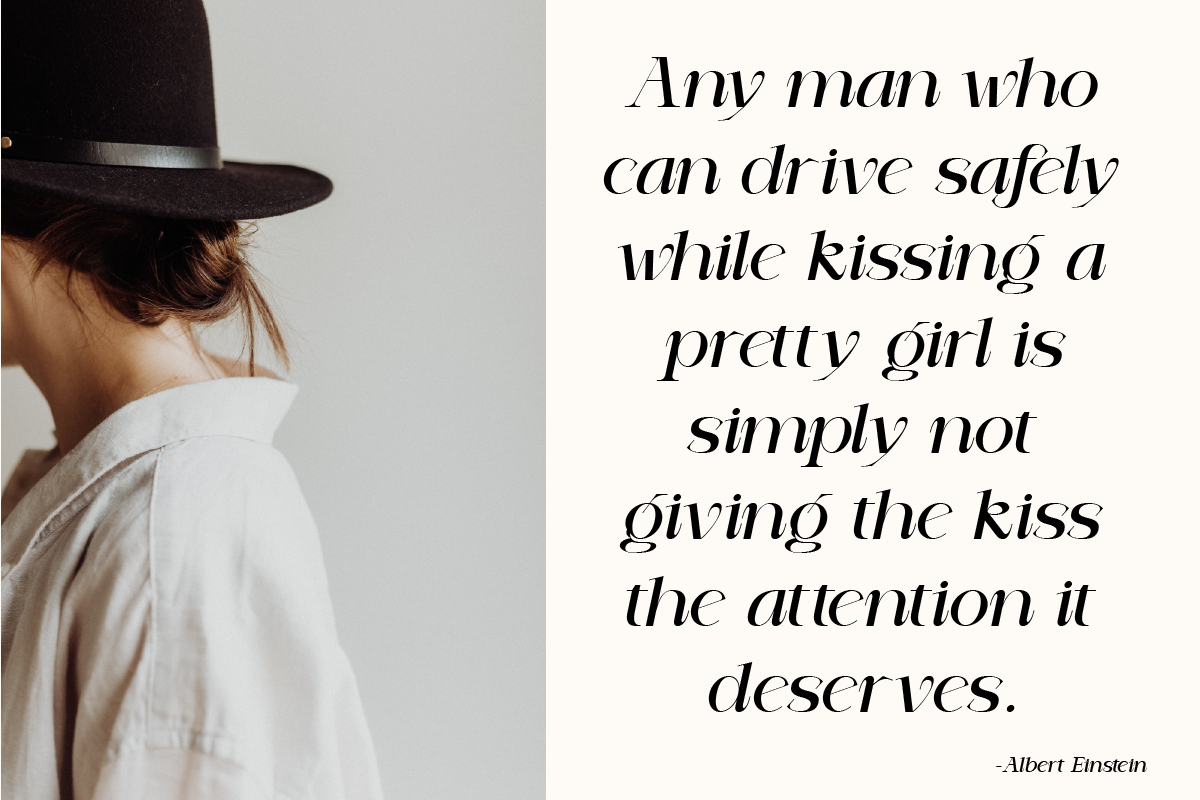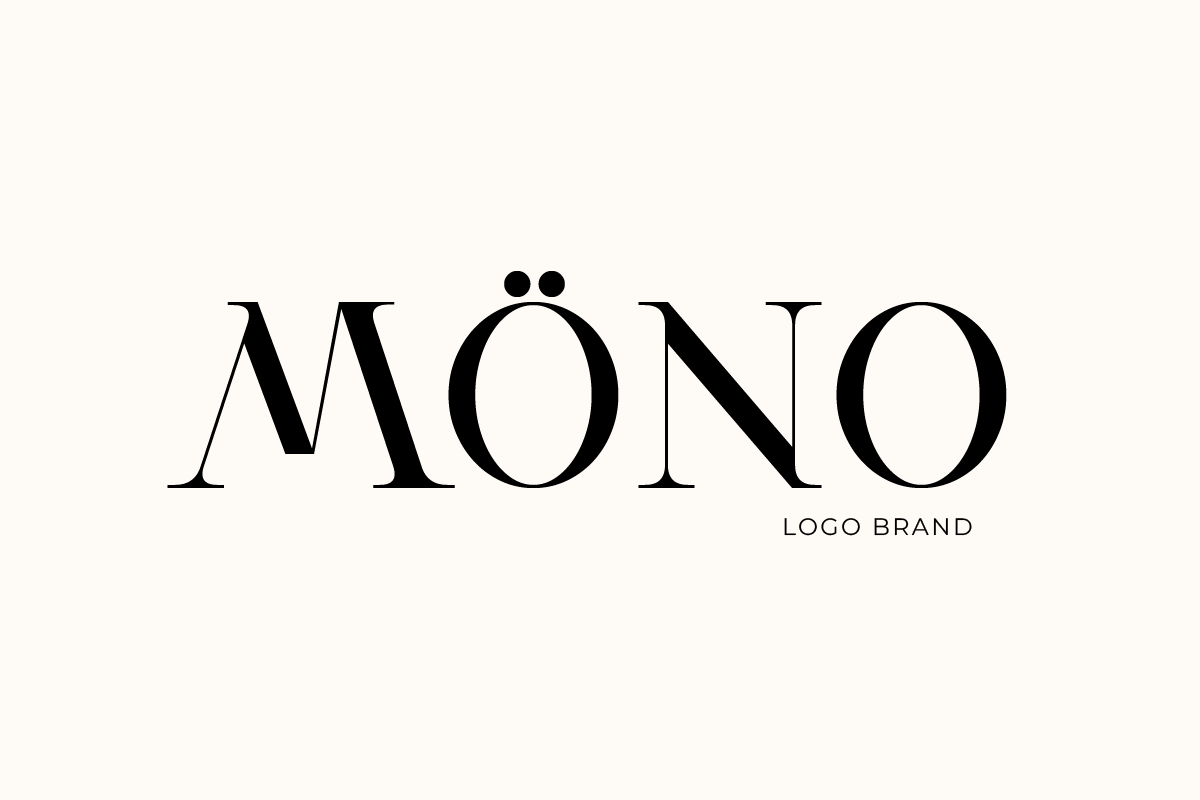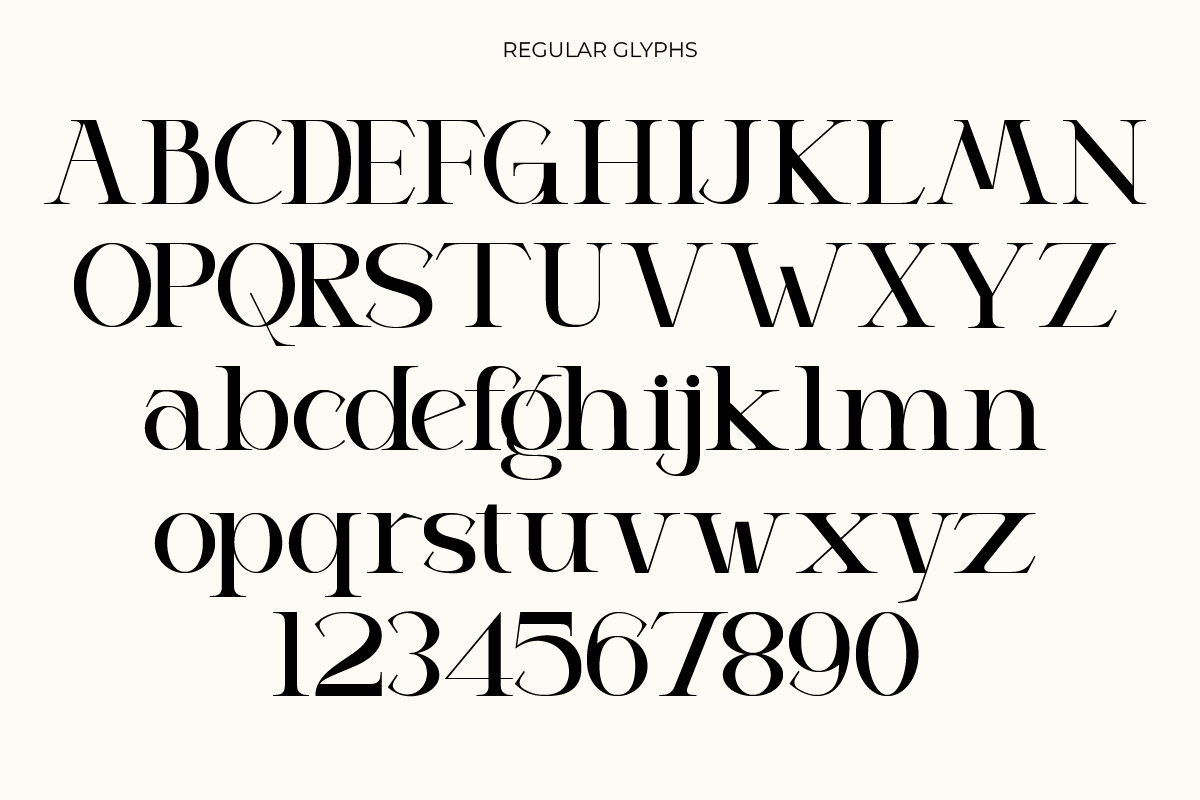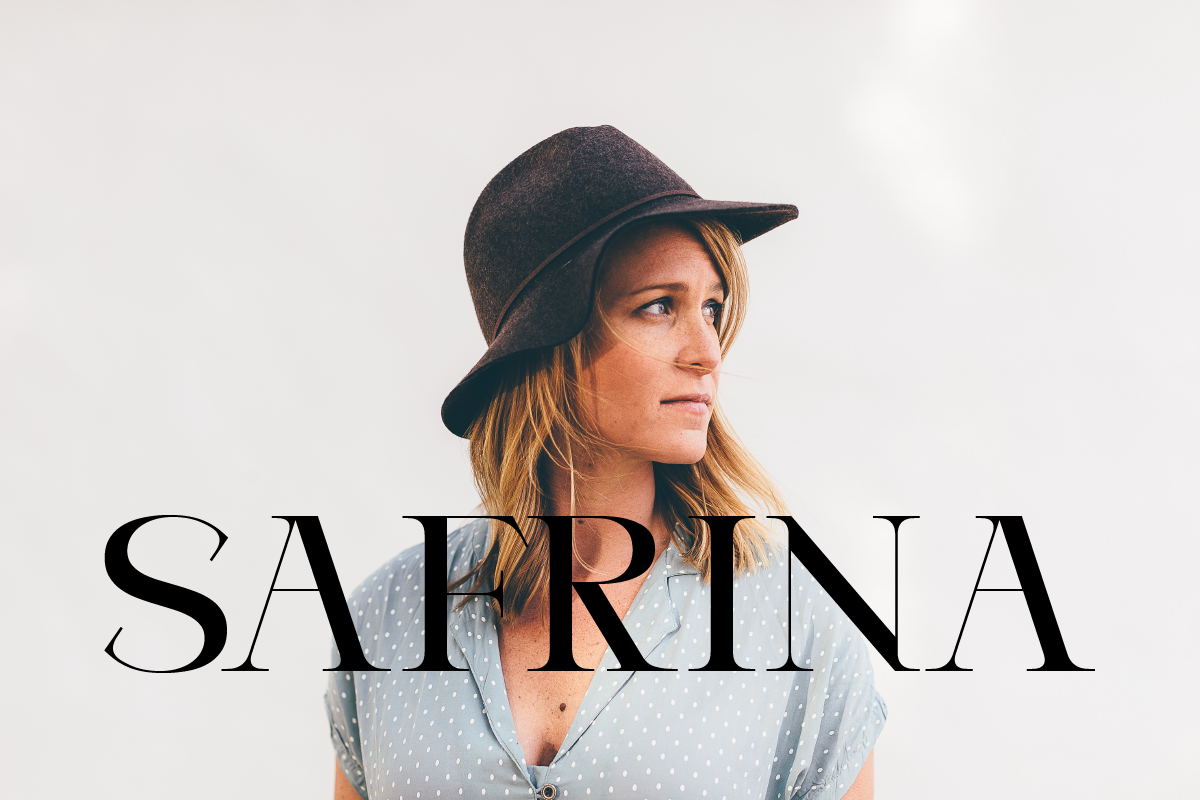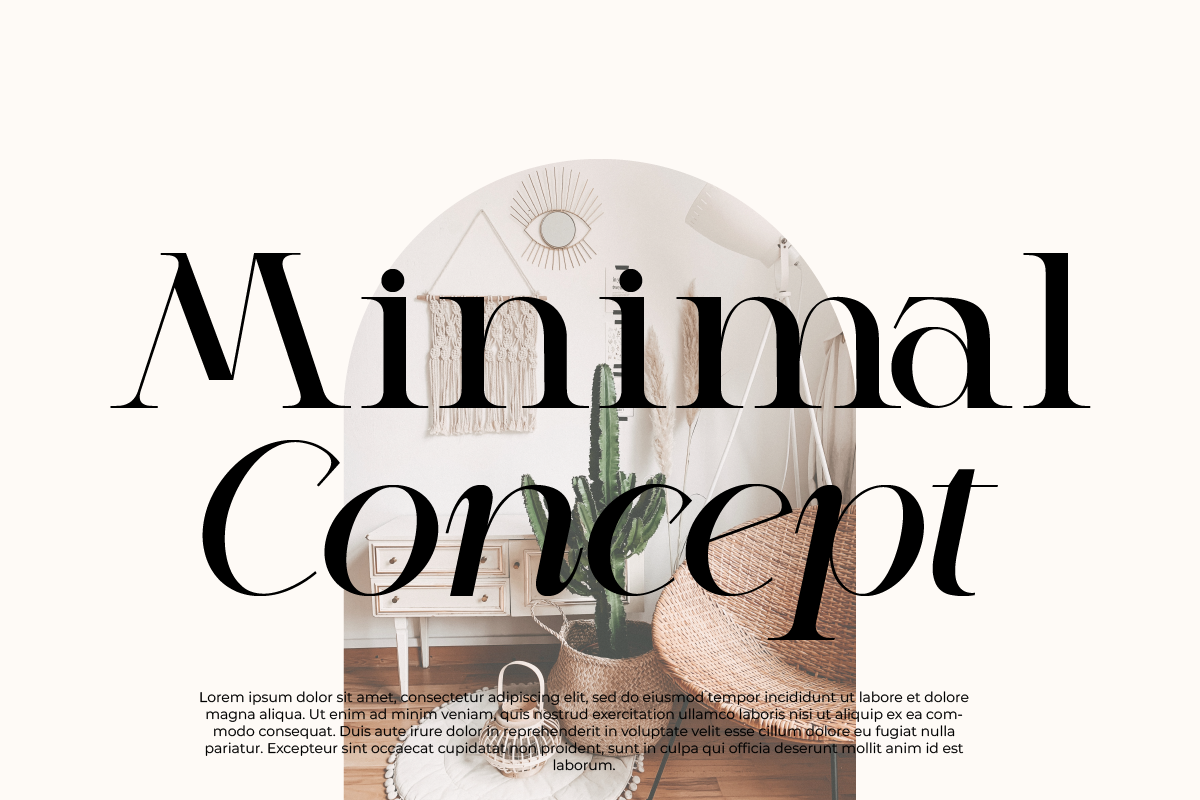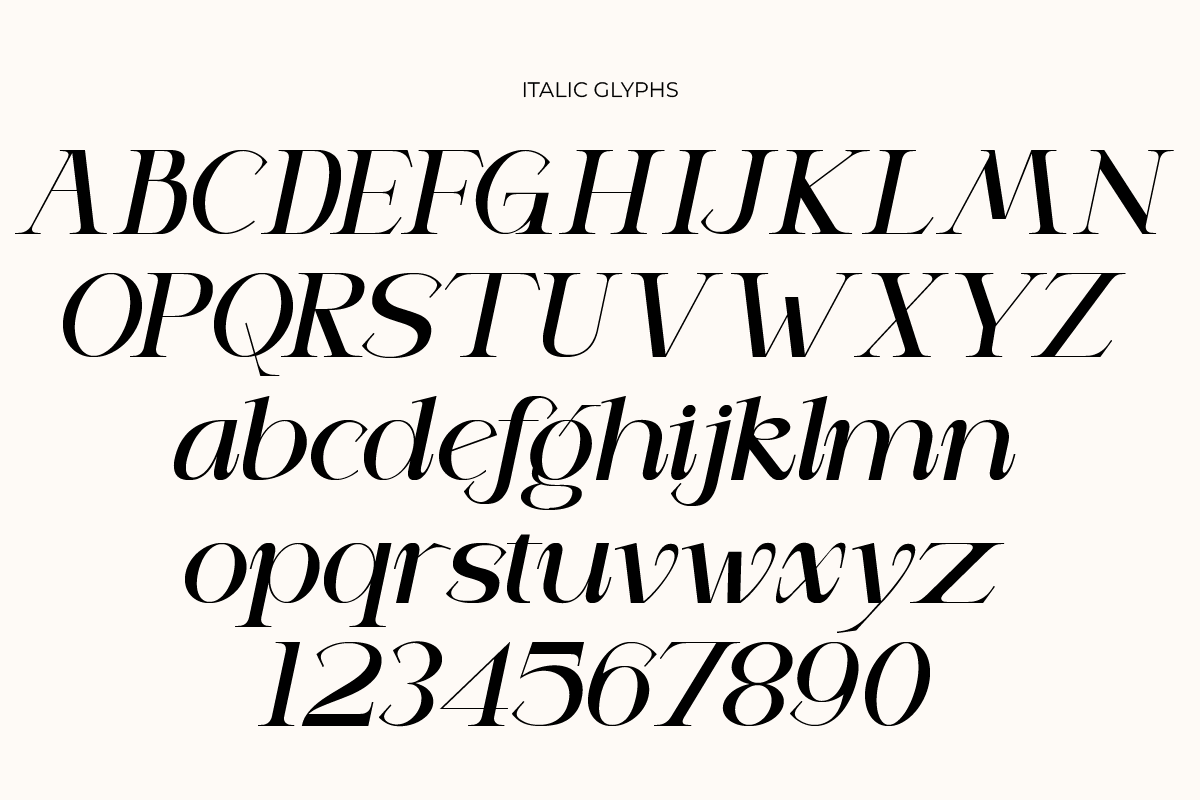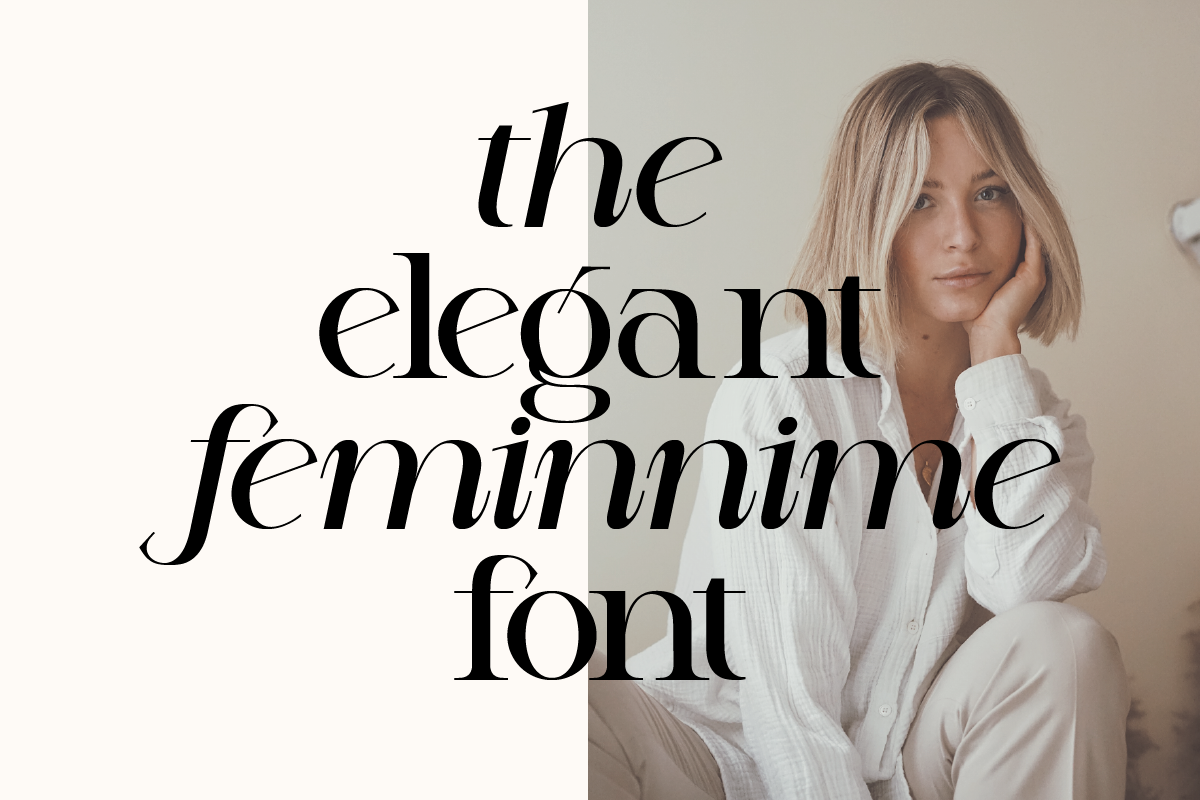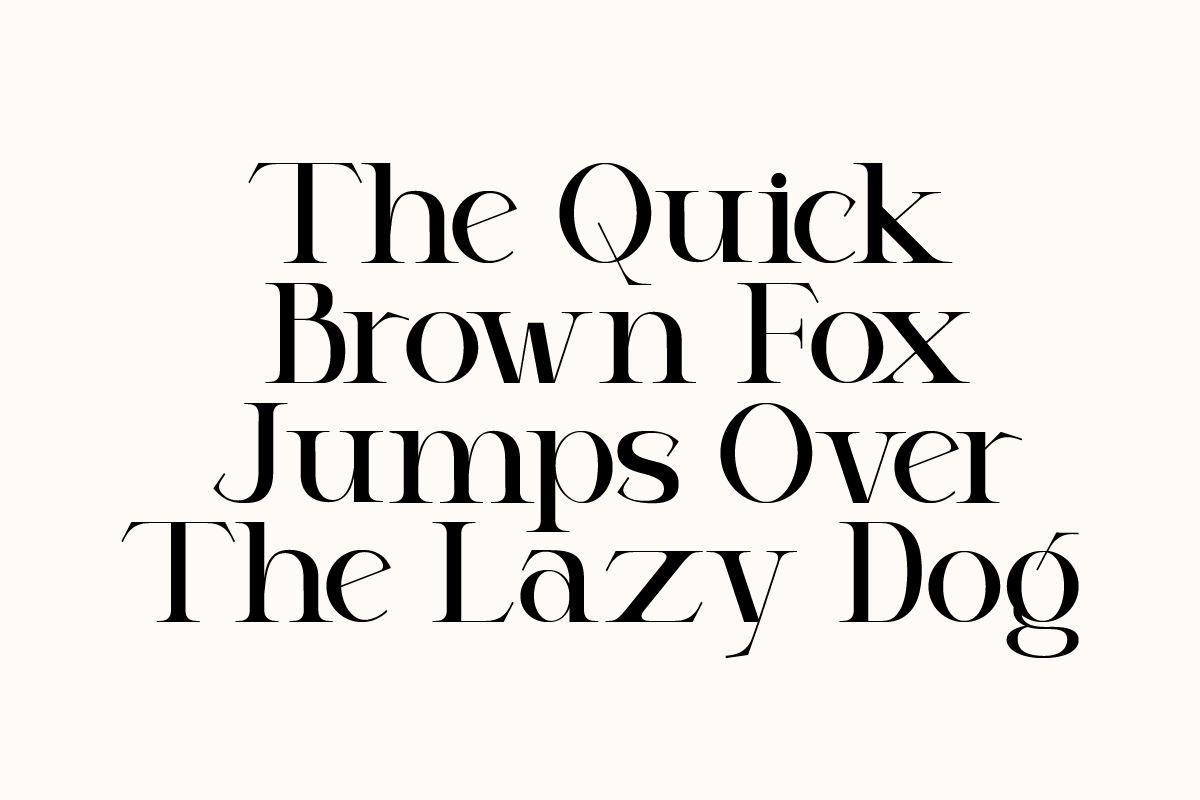
Margeline
Margeline is a modern-style font that combines serif elements with a contemporary touch. With its clean and elegant design, this font offers two main styles: regular and italic. Each letter in the Margeline font is meticulously crafted to convey a professional and modern impression in any design. The sophistication of this serif font makes it suitable for various design projects, including modern-themed branding logos. With its clarity and readability, Margeline is the perfect choice for enhancing the appearance and impact of any design